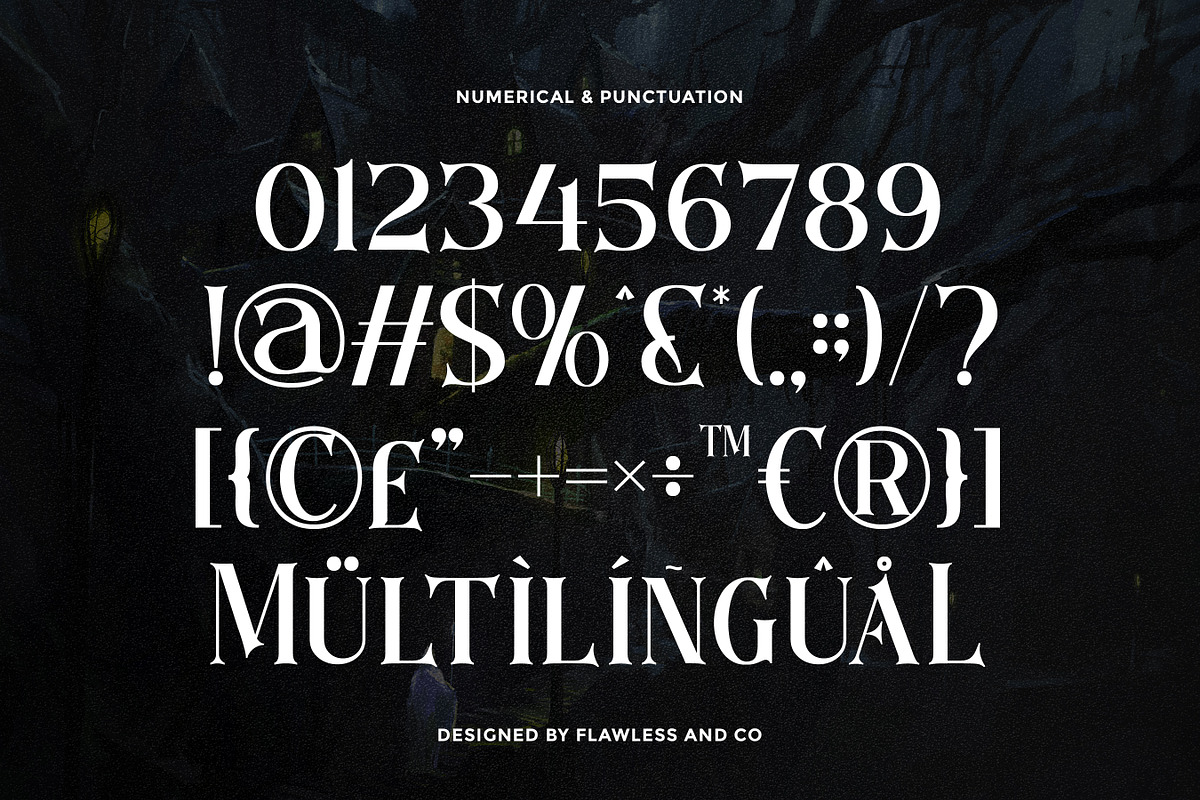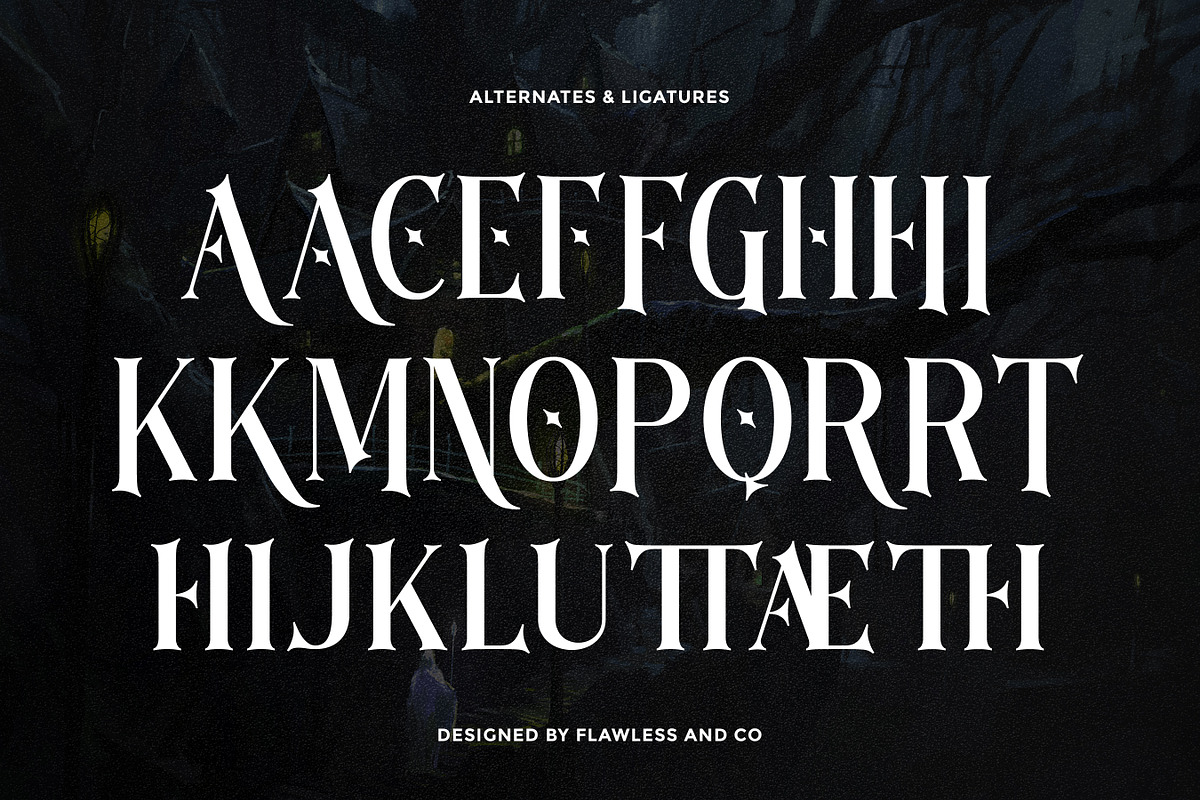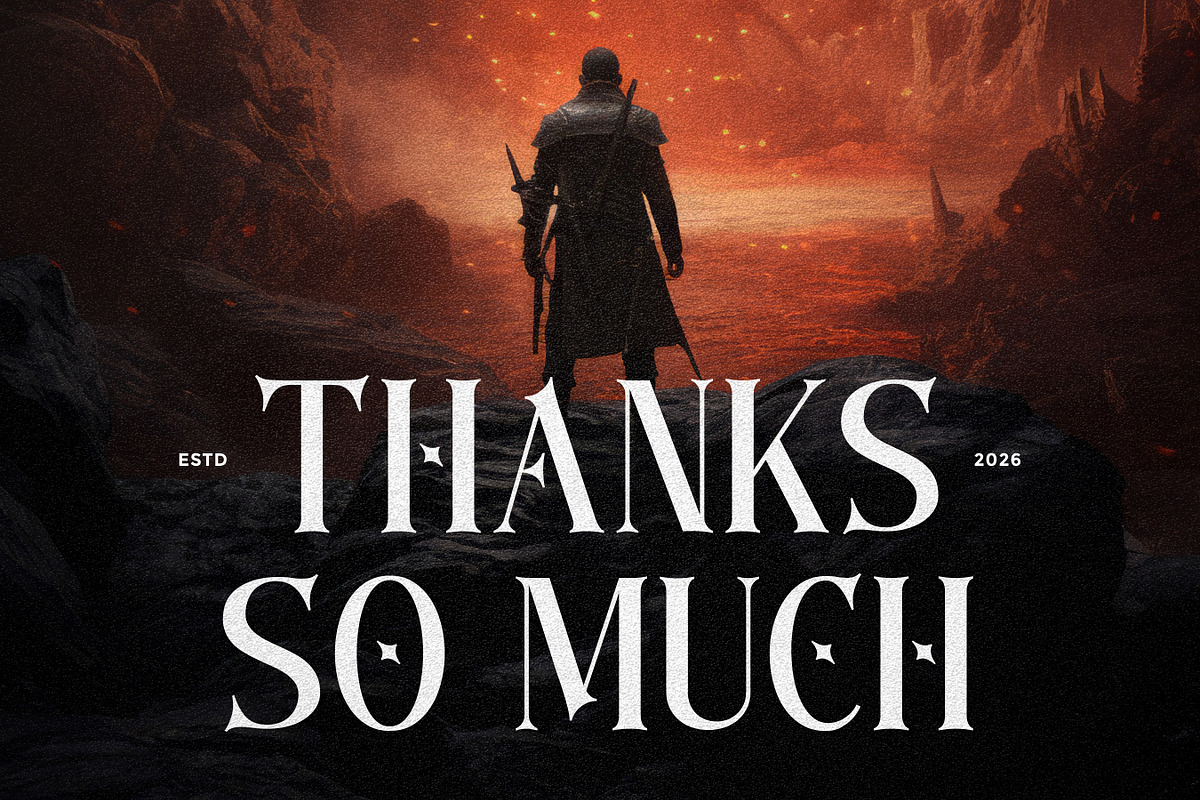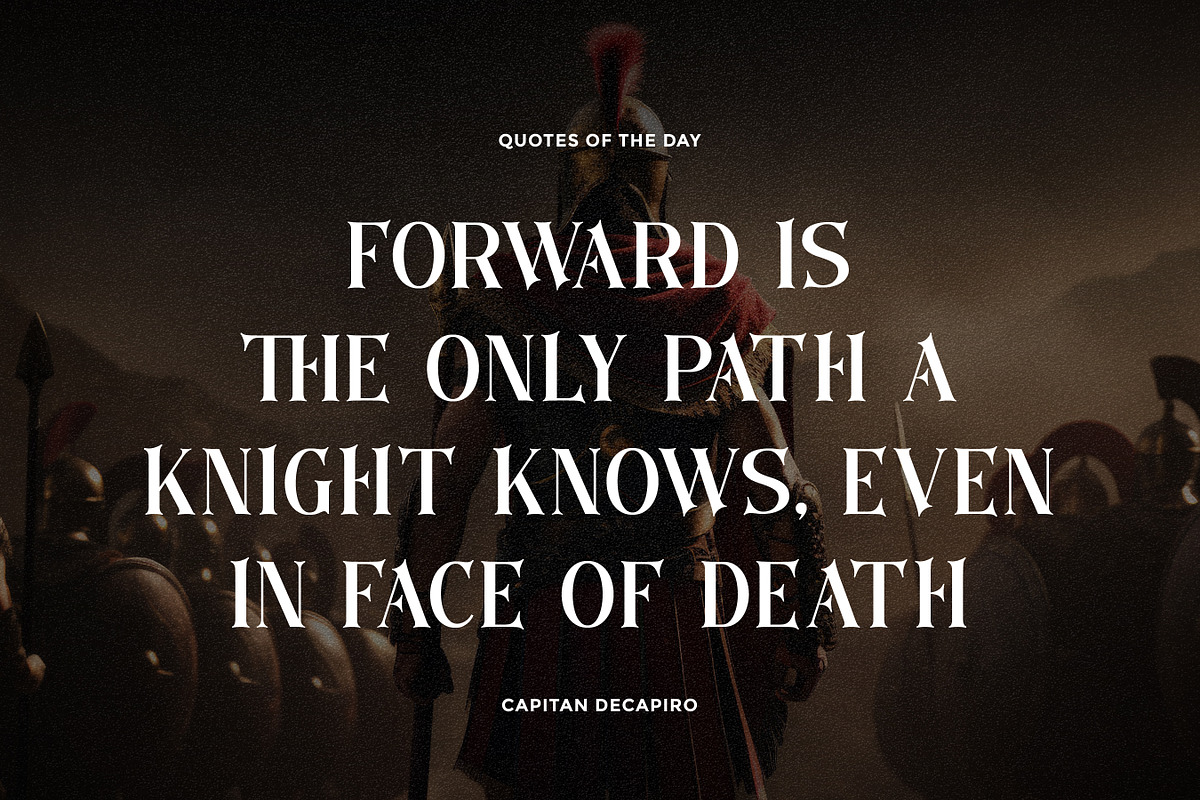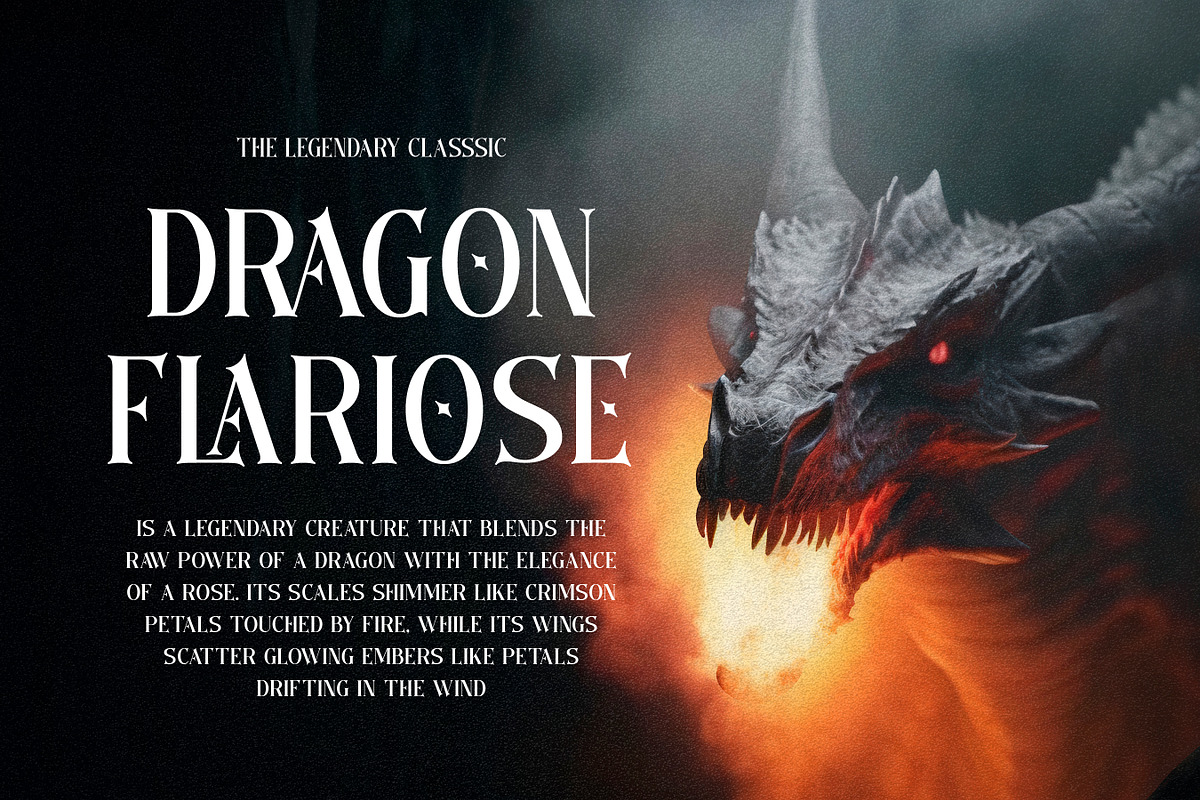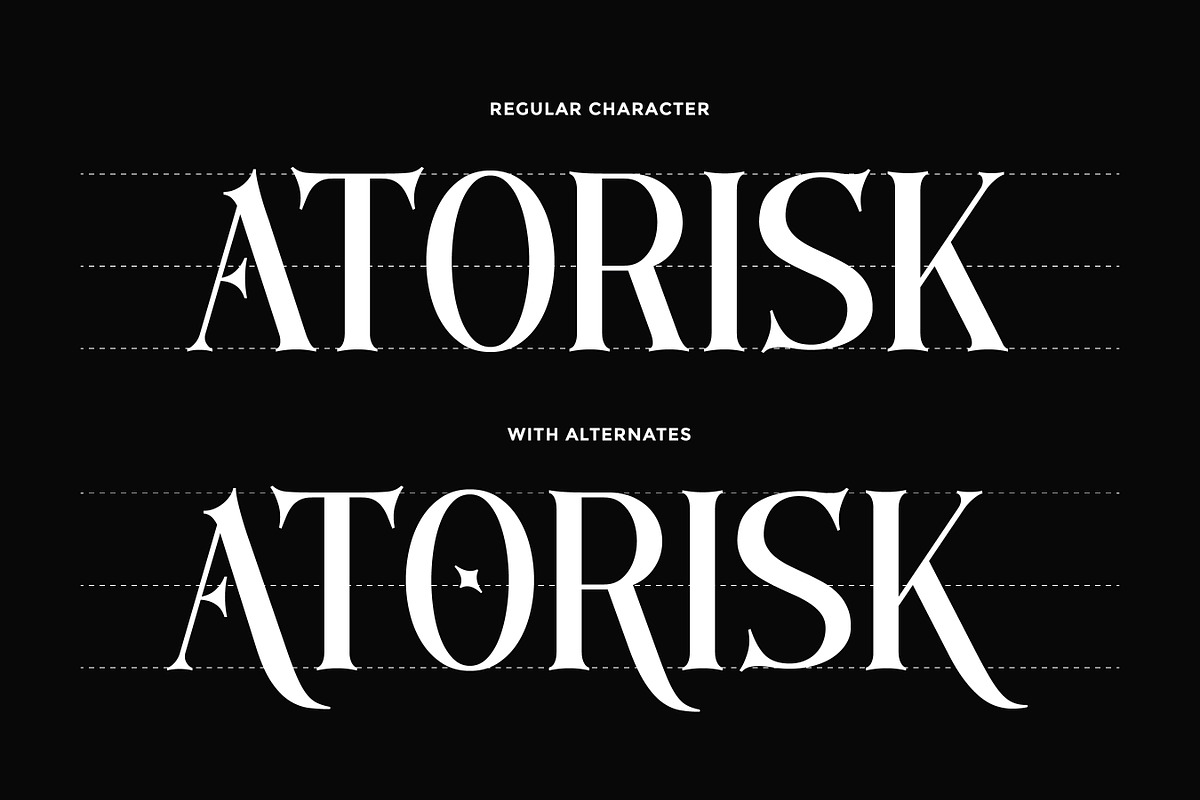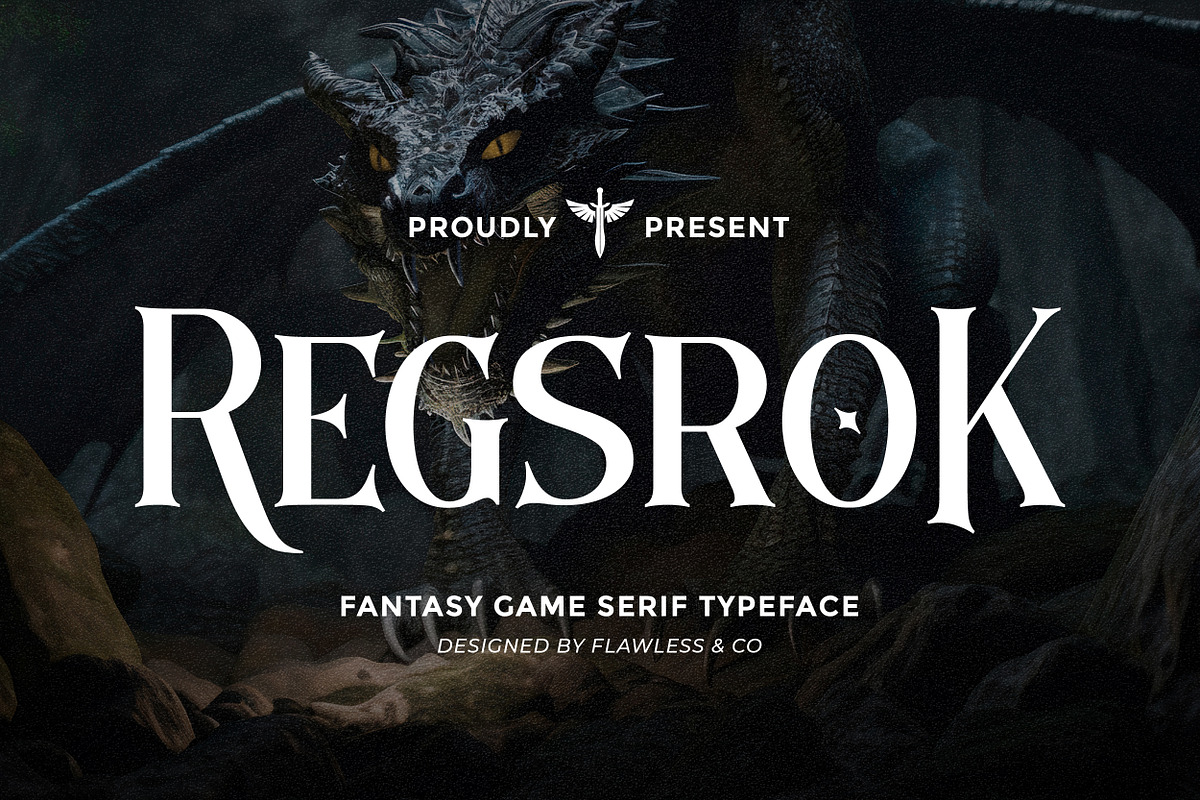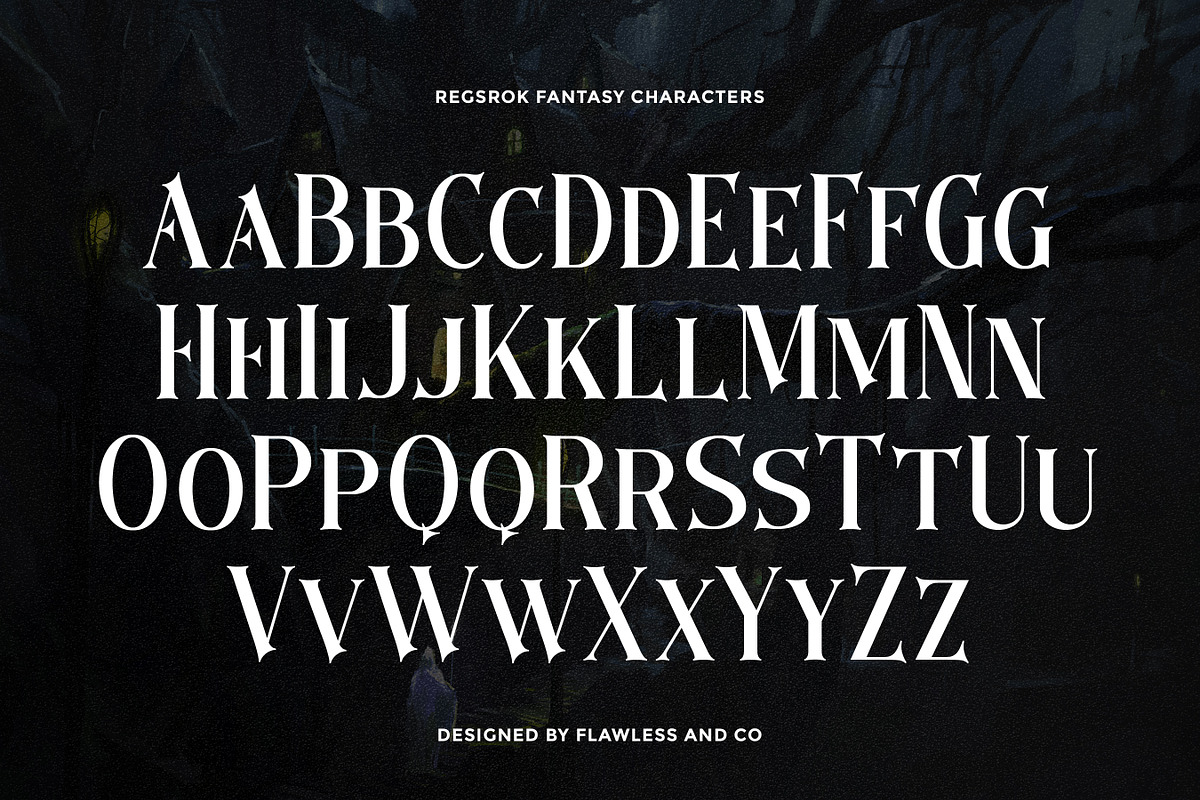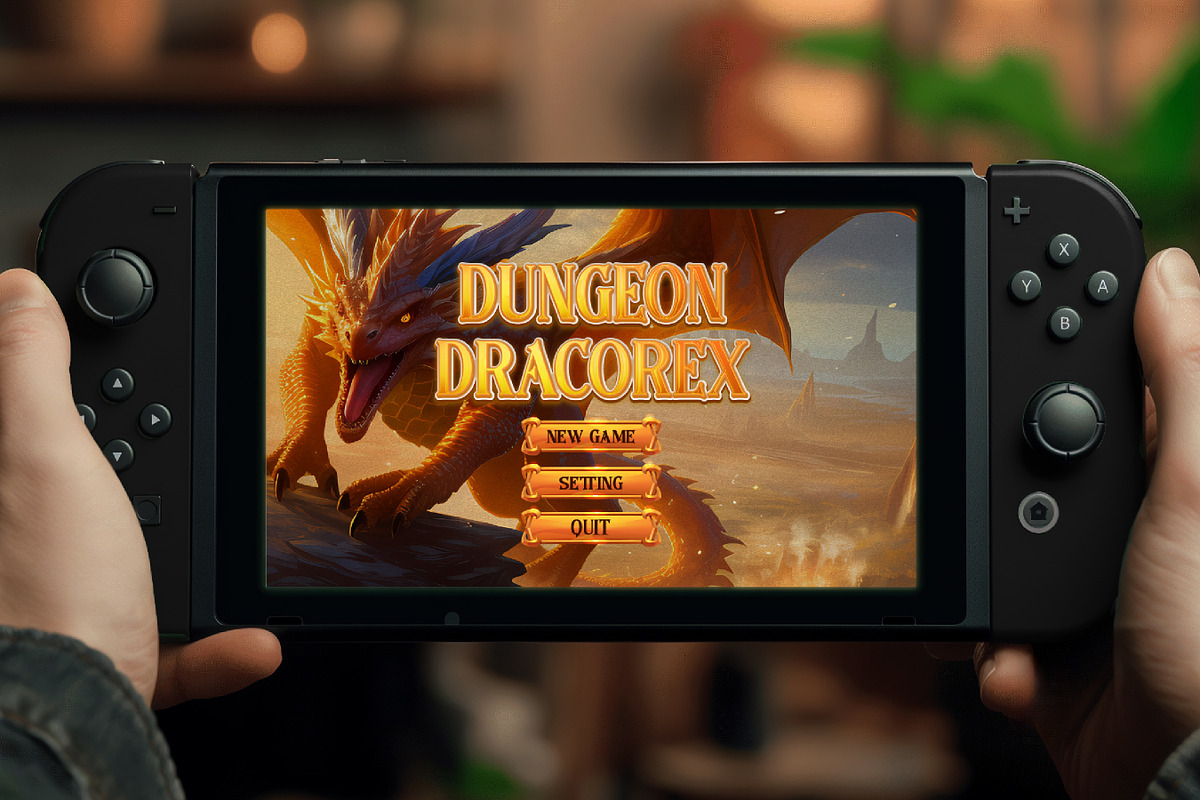
Regsrok - Fantasy Game Serif Font
Regsrok is a refined fantasy game serif typeface designed with a lighter, more elegant touch while still capturing the essence of magical worlds and epic storytelling. With its sharp, battle-worn details and heroic letterforms, this font captures the intensity of epic quests and mythical battles. It carries a strong medieval fantasy vibe while maintaining clarity and structure, making it perfect for titles that demand power, courage, and adventure. Whether you’re creating a game title, fantasy artwork, or cinematic design, Regsrok brings a bold and legendary atmosphere to your visuals.
Who Should Use Regsrok?
Regsrok is ideal for game designers, fantasy creators, and visual artists who want to build rich, immersive worlds through typography. It’s especially suited for projects that need a strong, adventurous, and mythical tone.
Suitable For:
- Game titles and esports visuals
- Fantasy and medieval themes
- Book covers and storytelling design
- Movie and cinematic posters
- RPG and adventure branding
- YouTube thumbnails and streaming graphics
- Creative display typography
- Epic headline design